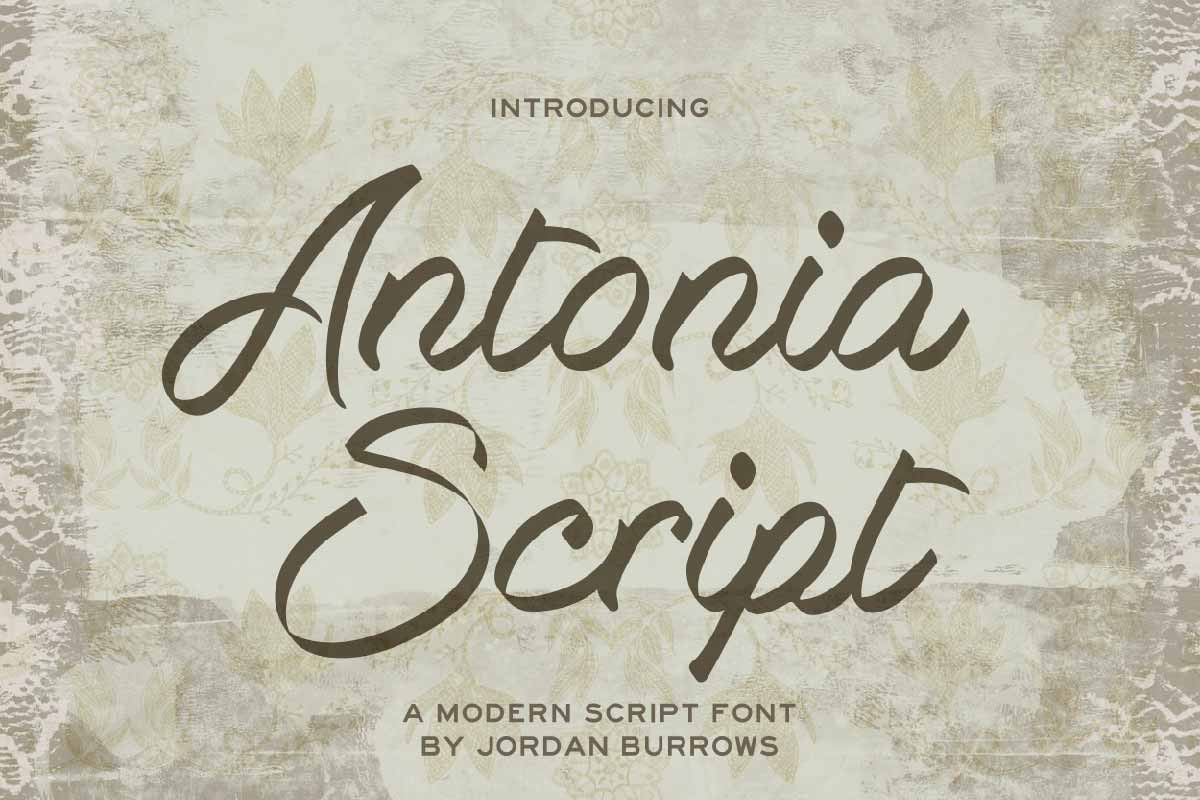
Antonia Script
Antonia Script is an elegant and free-flowing script font with complimentary brush strokes and good links. Suitable for wedding cards, wall art, greeting cards, logos, or anything that requires a stylish and delicate touch!